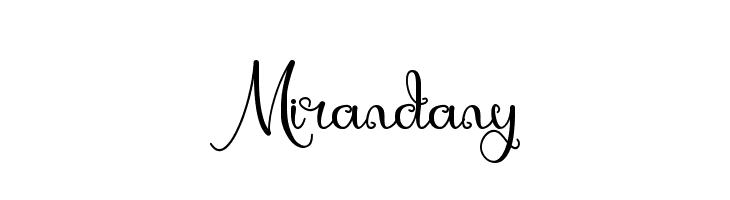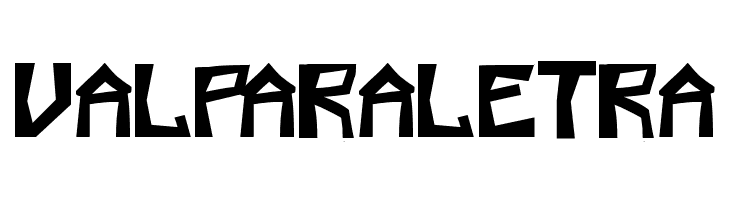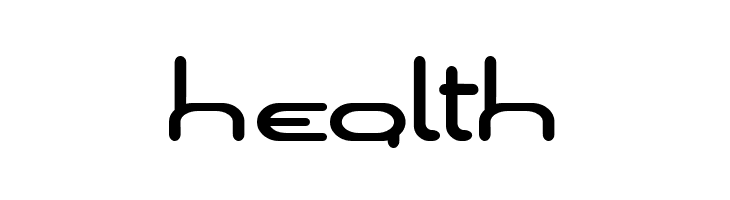
An elegant and flowing script font with intricate loops and swirls.
A bold, distressed font with a vintage, industrial feel.
A bold, jagged font with a tribal, hand-drawn aesthetic.
A bold, italicized font with a halftone effect, ideal for dynamic and modern designs.
A playful and bold script font with flowing, cursive characters.
A refined serif font with a light weight and elegant design.
A bold, chaotic font with a distressed, ink-splattered appearance.
A bold, modern font with a geometric and condensed design.
A bold, modern font with narrow, curved letterforms and a distinctive style.
A bold, rounded sans-serif font with smooth curves and a modern aesthetic.